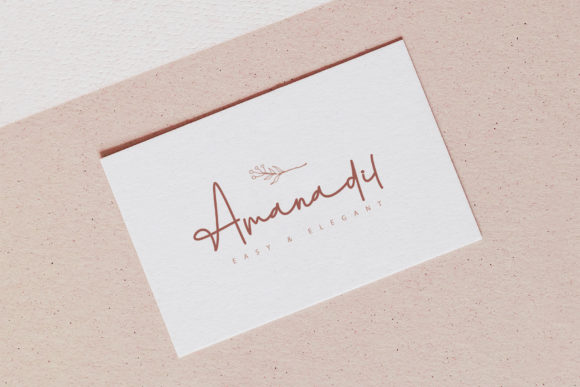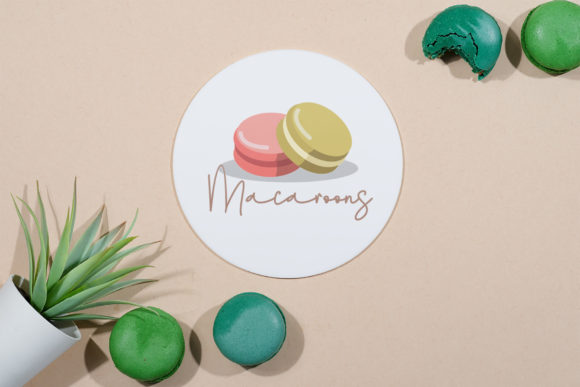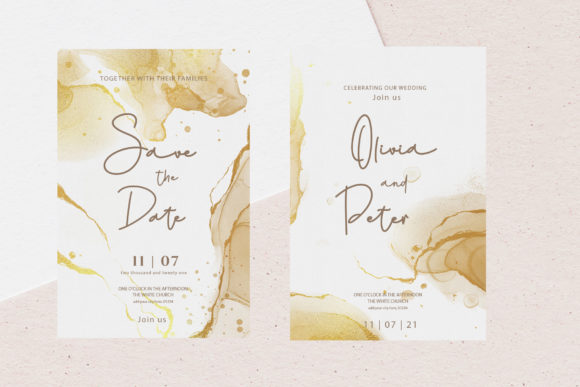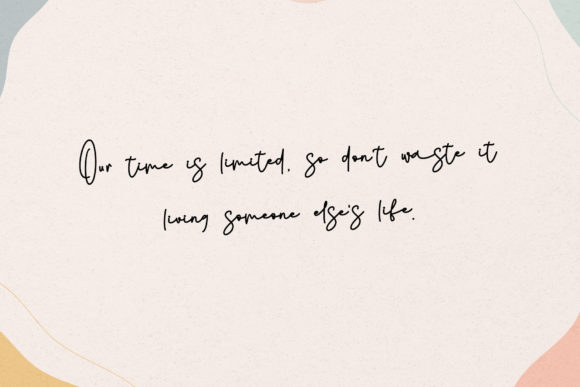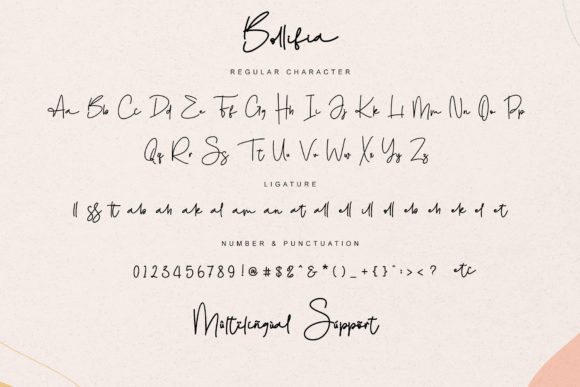
About Bollifia Font
Bollifia feels equally delicate and stylish. It looks beautiful on invitations, thank you cards, quotes, greeting cards, logos, business cards and every other design which needs a handwritten touch.